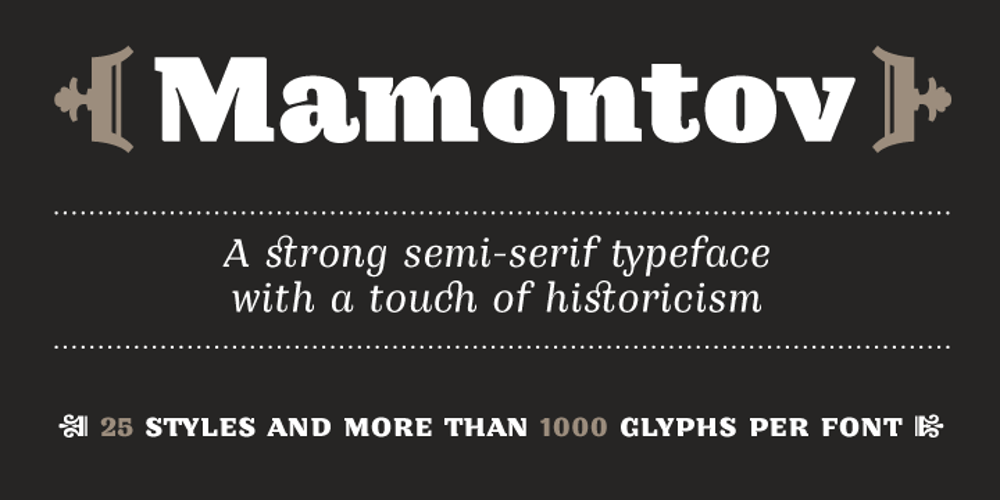
Mamontov
Mamontov font
Mamontov Font Family was designed by Oleg Macujev and published by omtype. Mamontov contains 25 styles and family package options. Originally Mamontov has been inspired by poster (usually wooden) types of the end of 19th—the beginning of 20th centuries. The type family was named after Savva Ivanovich Mamontov (1841-1918), Russian industrialist and patron of the arts. Massive asymmetric serifs, stocky proportions, type weight… are traces of harsh imperial reality. And soft forms of ovals, exaggerated compensators, humanistic curves of serifs and horizontal strokes betray the sensitivity and artistry of Savva Ivanovich. Mamontov has 25 styles, ranging from Light to Black and from Condensed to Wide, with more than 1000 characters per font.